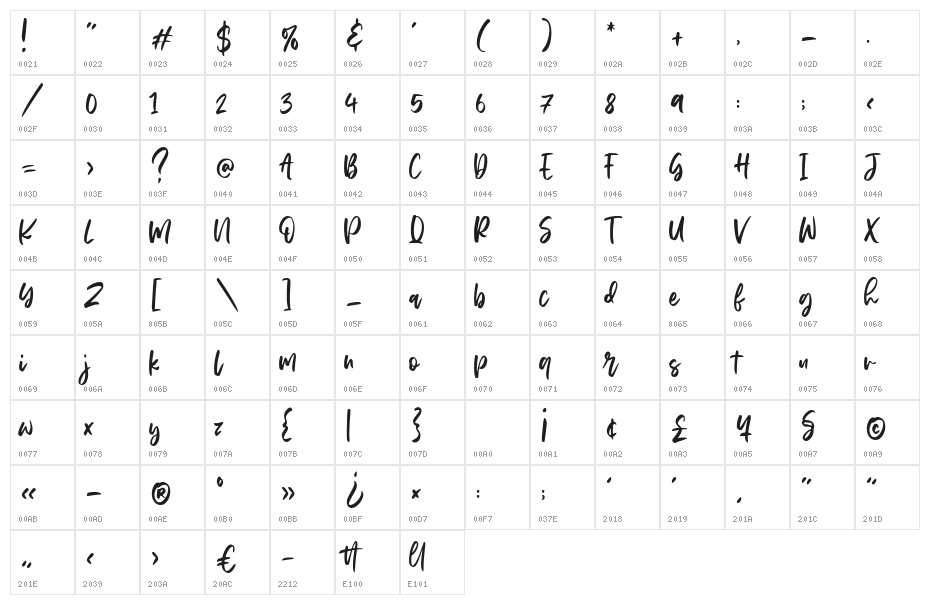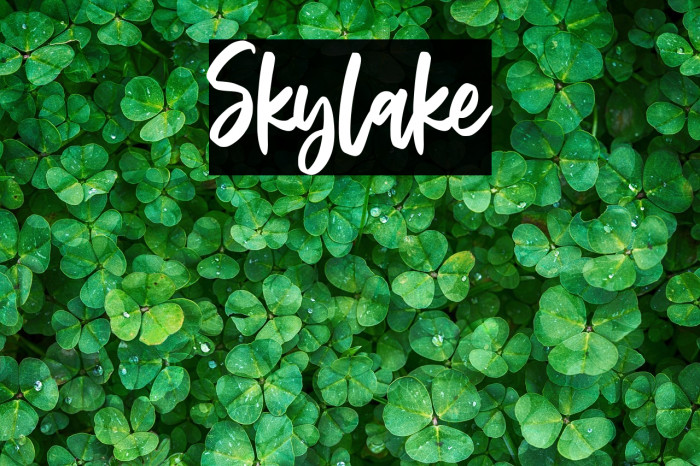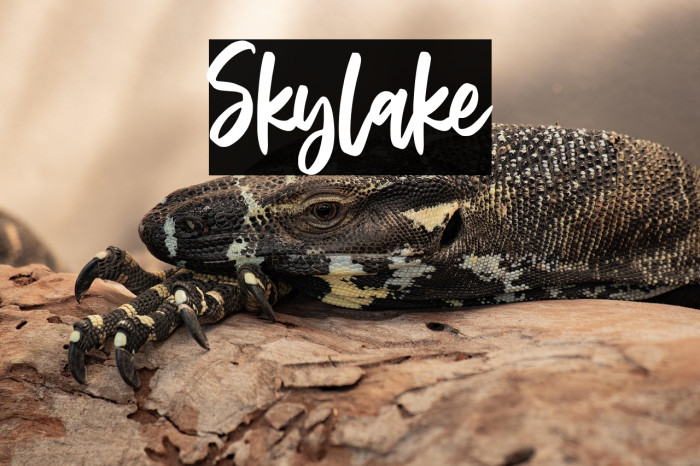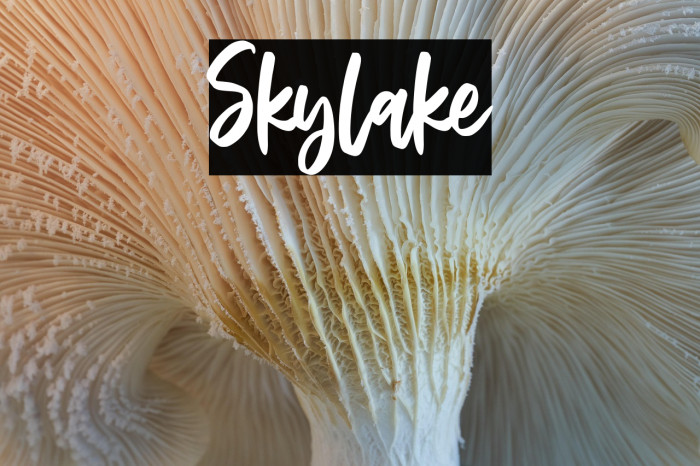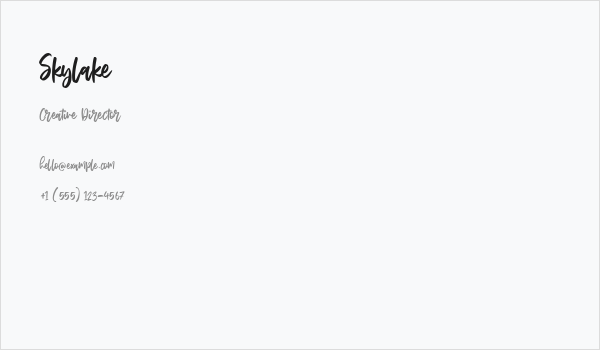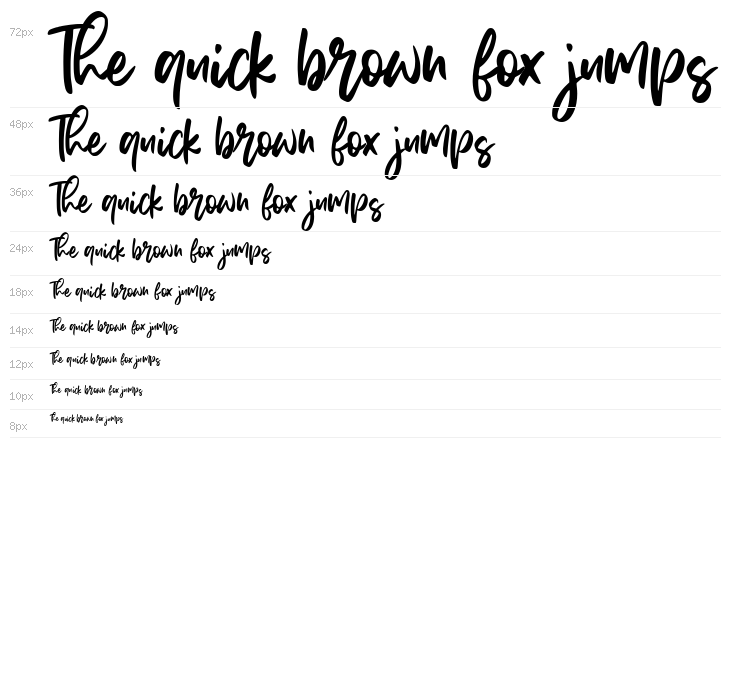
Skylake Font
Skylake Description
This font features a lively and energetic handwritten style, characterized by its bold and flowing letterforms. The uppercase letters are tall and slightly slanted, giving a sense of movement and dynamism. The lowercase letters maintain a consistent flow, with playful loops and curves that add a touch of whimsy. Numbers and special characters are crafted with the same expressive flair, ensuring a cohesive look across all elements. The overall appearance is casual yet stylish, making it suitable for projects that require a personal and approachable touch.
| Proposed Projects | Ideal for greeting cards, invitations, branding projects, and social media graphics. |